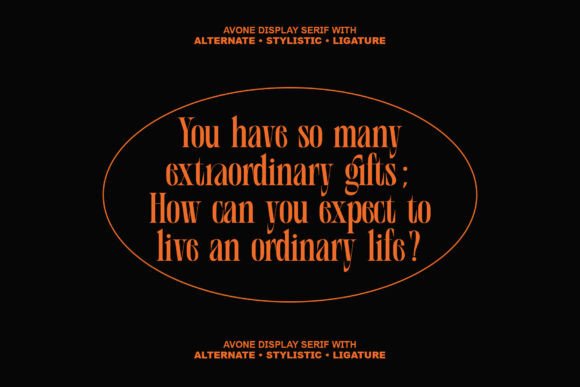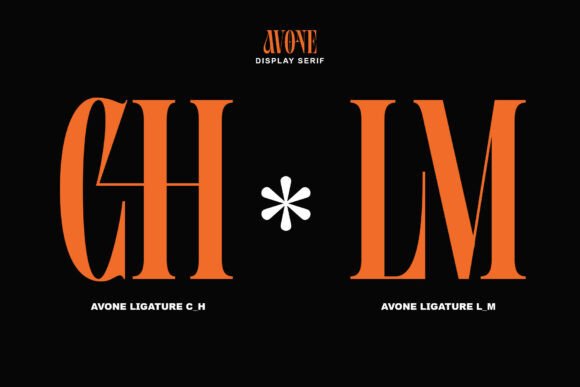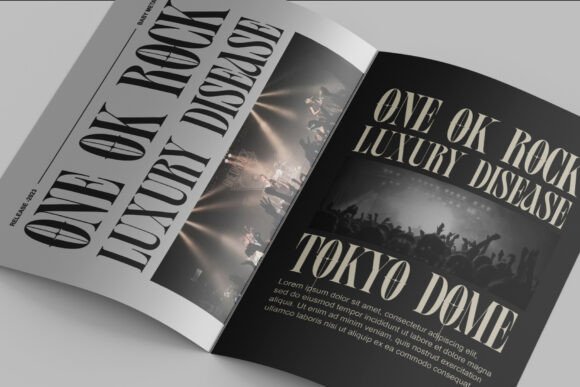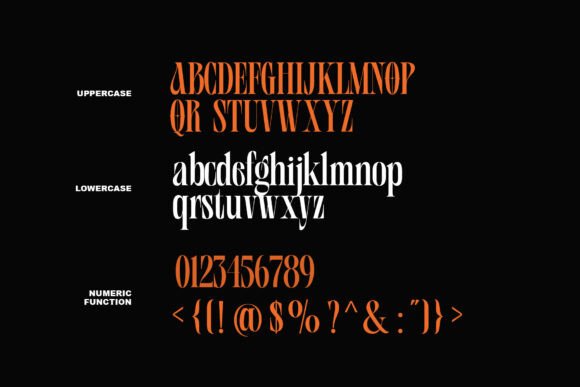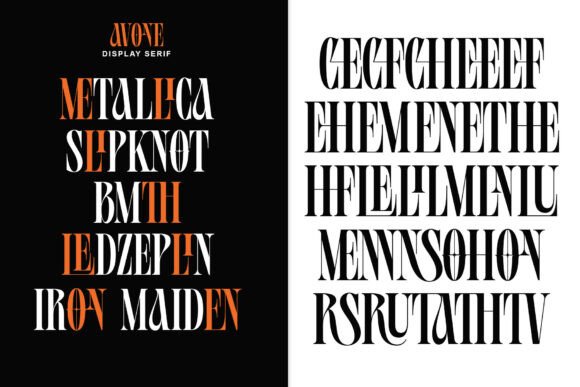
Introducing Avone Font: The Epitome of Elegance and Sophistication
In the realm of typography, few fonts manage to convey the essence of luxury and refinement as effectively as Avone. This striking display serif font is characterized by its ultra-condensed letterforms and sharp, elongated terminals, making it an ideal choice for high-end branding and editorial projects. With its unique stylistic ligatures, Avone exudes a sophisticated, editorial vibe that is sure to elevate any design or craft project.
The Design Philosophy Behind Avone
Avone’s design is rooted in the principles of elegance and restraint. Its ultra-condensed letterforms are meticulously crafted to convey a sense of luxury and refinement, while its sharp, elongated terminals add a touch of sophistication and poise. This careful attention to detail makes Avone an excellent choice for designers and crafters seeking to create high-end branding, editorial content, or packaging that demands attention.
Key Features of Avone Font
- Ultra-condensed letterforms: Avone’s letterforms are designed to be compact and elegant, making it perfect for headlines, titles, and mastheads.
- Sharp, elongated terminals: The font’s terminals are carefully crafted to add a touch of sophistication and refinement to any design.
- Unique stylistic ligatures: Avone features a range of stylistic ligatures that add an extra layer of elegance and sophistication to the font.
Perfect for High-Fashion Mastheads and Premium Jewelry Branding
Avone’s sophisticated, editorial vibe makes it an ideal choice for high-fashion mastheads and premium jewelry branding. The font’s elegant letterforms and stylistic ligatures evoke a sense of luxury and refinement, perfect for brands seeking to convey a sense of high-end quality and sophistication.
Why Designers and Crafters Love Avone
Designers and crafters love Avone for its versatility and elegance. The font can be used for a wide range of projects, from editorial content and branding to packaging and advertising. Its unique stylistic ligatures and ultra-condensed letterforms make it an excellent choice for designers seeking to create visually striking designs that demand attention.
Tips for Using Avone Effectively
- Use Avone for headlines and titles: The font’s ultra-condensed letterforms and sharp terminals make it perfect for headlines and titles.
- Experiment with stylistic ligatures: Avone’s stylistic ligatures add an extra layer of elegance and sophistication to the font. Experiment with different ligatures to find the perfect combination for your design.
- Pair Avone with complementary fonts: Avone can be paired with a range of complementary fonts to create visually striking designs.
Avone is a striking display serif font that embodies the essence of luxury and refinement. With its ultra-condensed letterforms, sharp terminals, and unique stylistic ligatures, Avone is perfect for designers and crafters seeking to create high-end branding, editorial content, and packaging. Whether you’re working on a high-fashion masthead or premium jewelry branding, Avone is sure to elevate your design and convey a sense of sophistication and elegance.